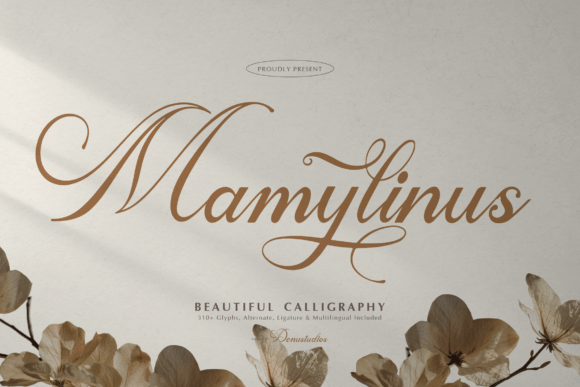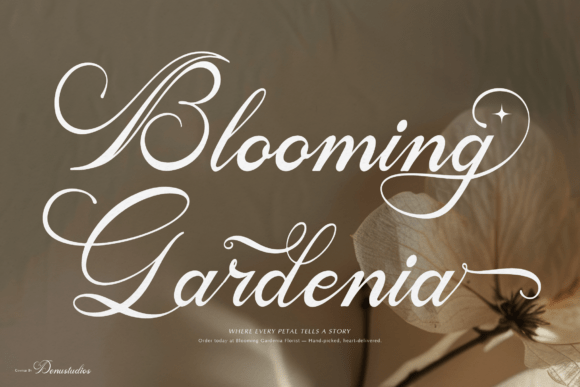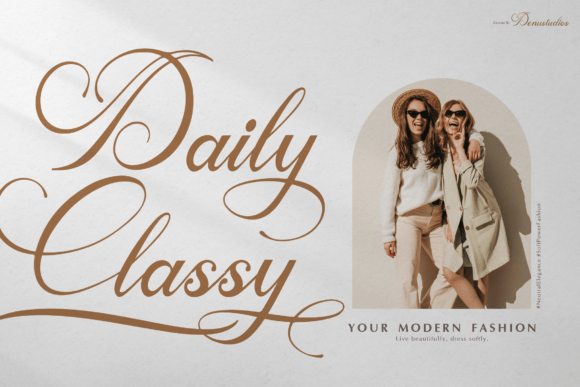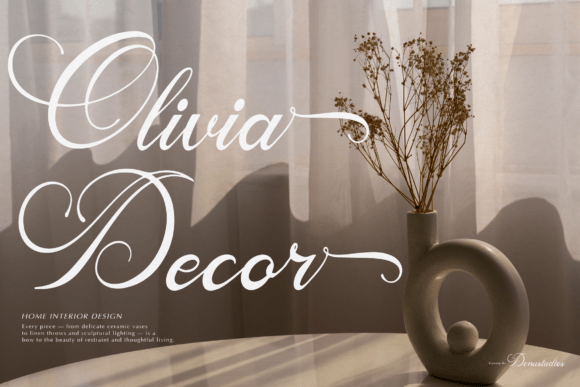
Mamylinus Font: Elegant Calligraphy for Wedding & Feminine Branding
About the Mamylinus Font
Presenting Mamylinus Font, a unique and stylish typeface that will make your work stand out. Mamylinus is a beautiful calligraphy font, suitable for any projects such as: logos, branding projects, homeware designs, product packaging, mugs, quotes, posters, shopping bags, t-shirts, book covers, name card, invitation cards, greeting cards, label, photography, watermark, special events, and all your other lovely projects that need a Beautiful Calligraphy taste.
Mamylinus’s elegant, slightly playful calligraphic style works best in headlines, short text blocks, and branding applications where a touch of sophistication is desired. It excels in logo design, packaging for luxury or artisanal products, and short-form invitations or greeting cards. However, its delicate nature makes it unsuitable for body text or UI elements; the intricate details would be difficult to read at smaller sizes.
For optimal visual harmony, pair Mamylinus with a clean sans-serif like Lato for a modern contrast, or a classic serif such as Garamond for a more traditional feel. A geometric sans-serif like Montserrat could also create a striking juxtaposition, lending a contemporary edge to the script’s graceful curves.
The overall personality of Mamylinus is sophisticated yet approachable; it conveys a sense of both refined elegance and friendly warmth, making it ideal for brands aiming for a balance of luxury and approachability.
Mamylinus Font Usage Examples
Mamylinus Font Example